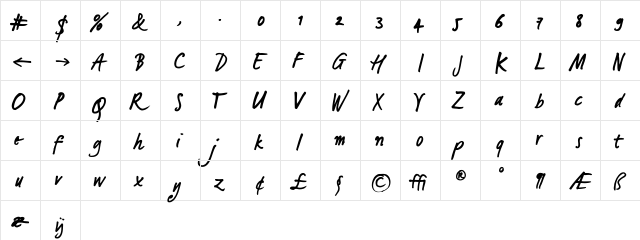
LucasHandFeetSemi Medium Font Preview
LucasHandFeetSemi Medium
LucasHandFeetSemi Medium Font Details
| Foundry | Luc(as) de Groot, |
Design Context for LucasHandFeetSemi Typeface
LucasHandFeetSemi brings a calligraphic fluidity to the page — its connecting strokes and expressive curves give it an unmistakably human quality.